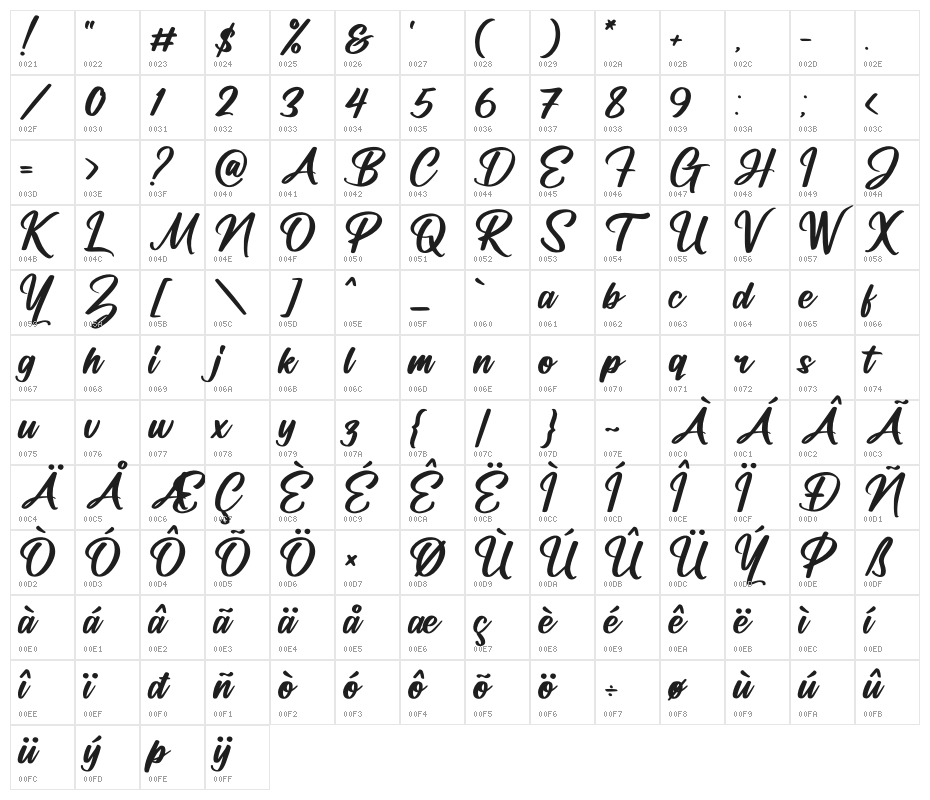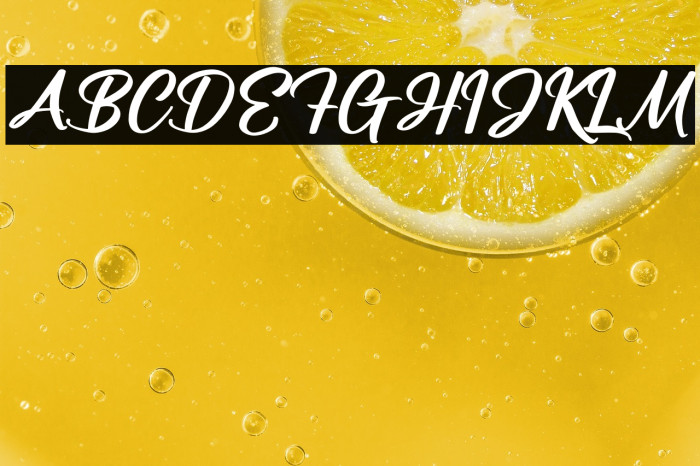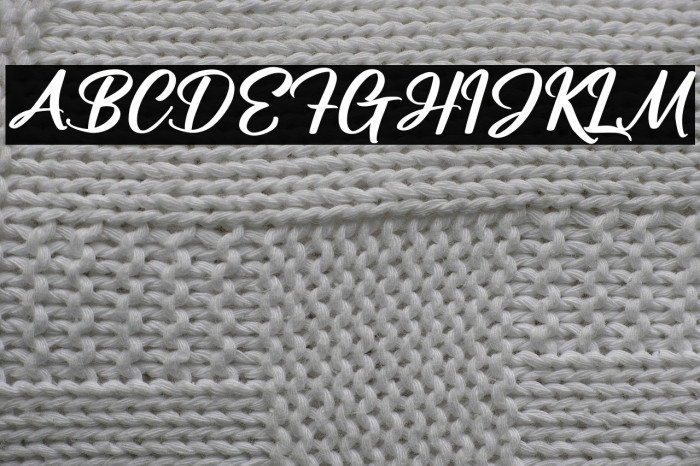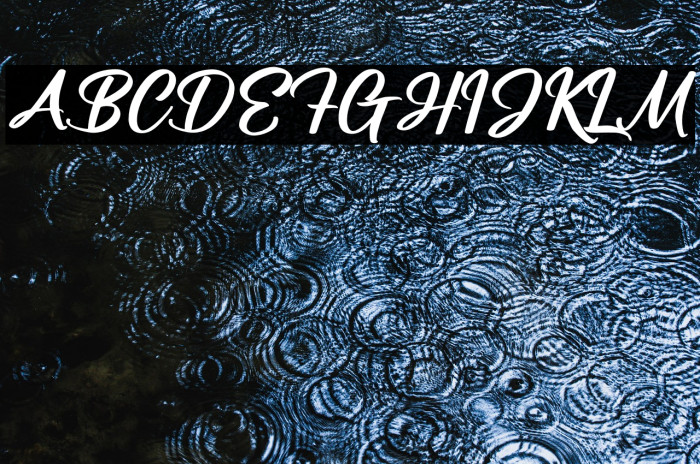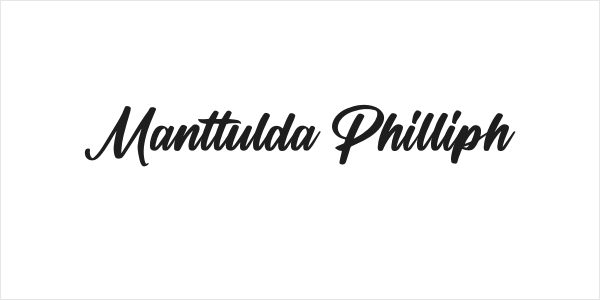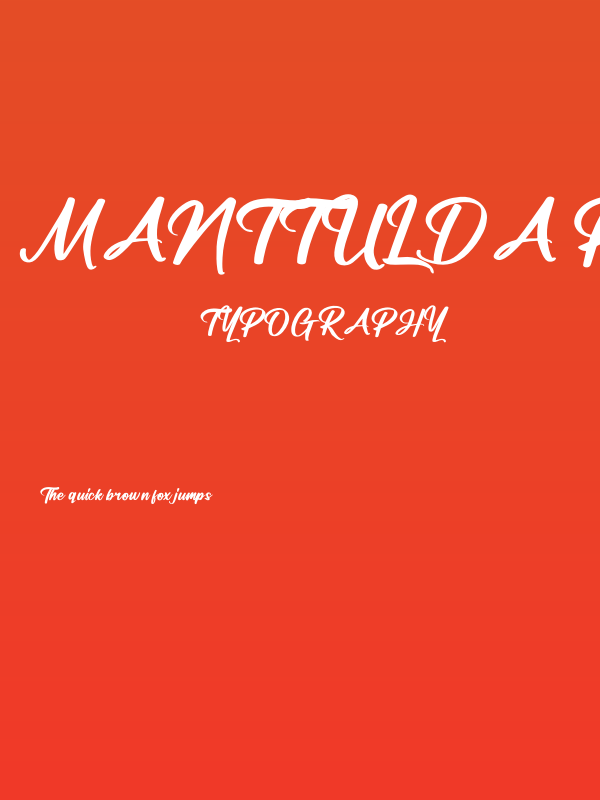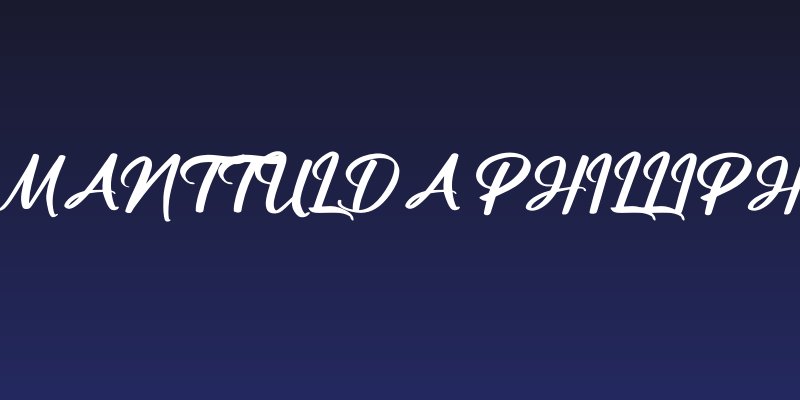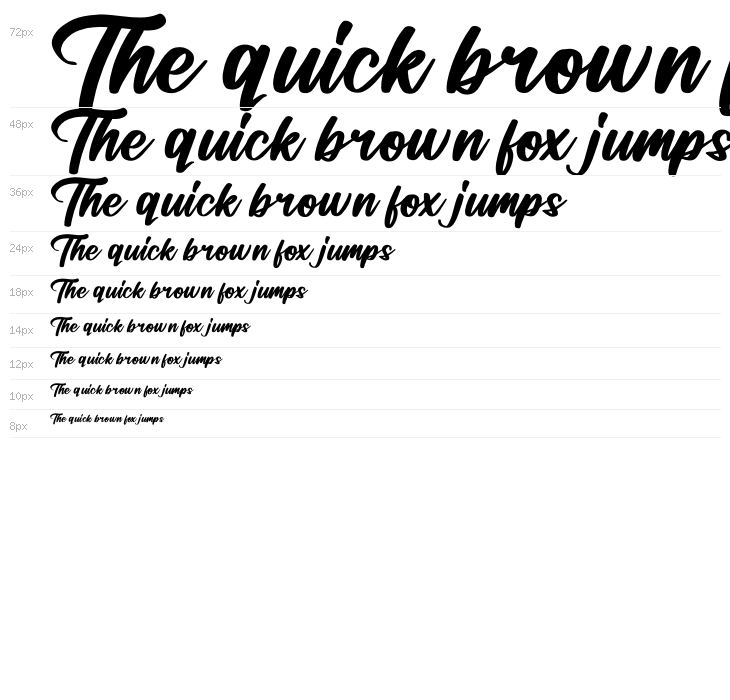
Manttulda Philliph Font
Manttulda Philliph Description
This font features a bold and expressive script style, characterized by its fluid and dynamic strokes. The uppercase letters exhibit a graceful, flowing form, while the lowercase letters maintain a consistent, cursive appearance. The numbers and special characters are designed to complement the overall script style, ensuring a cohesive look across all elements. The font's bold weight and high contrast between thick and thin strokes give it a striking presence, making it ideal for attention-grabbing designs. The character spacing is moderately tight, enhancing the connected, handwritten feel of the script.
| Proposed Projects | Ideal for branding, invitations, greeting cards, and decorative headlines. |